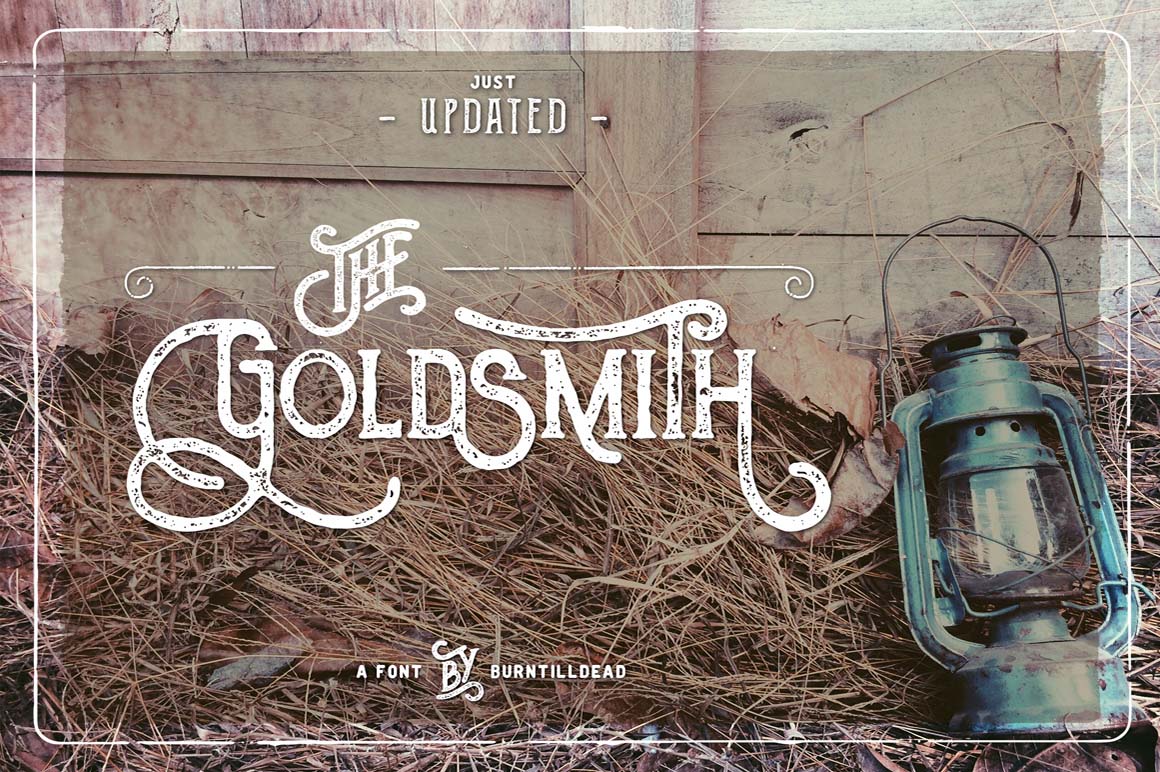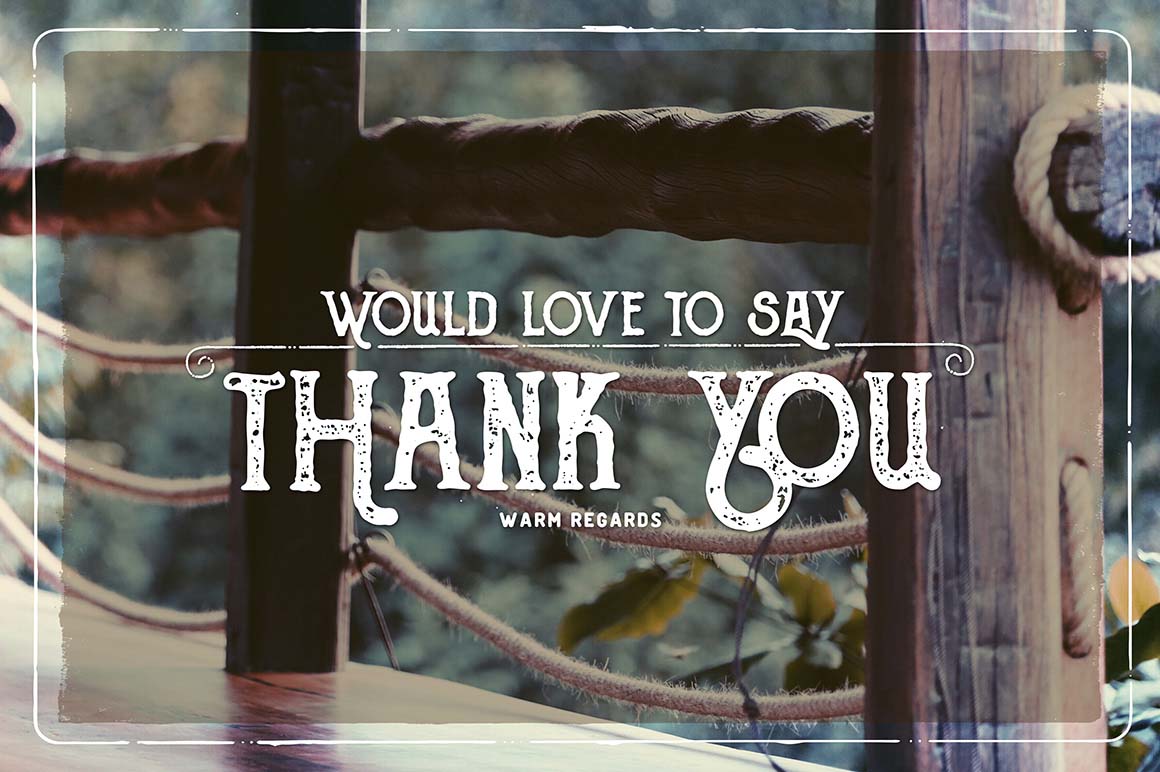
The Goldsmith Vintage – Free Font
This grunge & vintage style font is from Burntilldead. Great for your new retro or vintage projects. Download and enjoy 😉